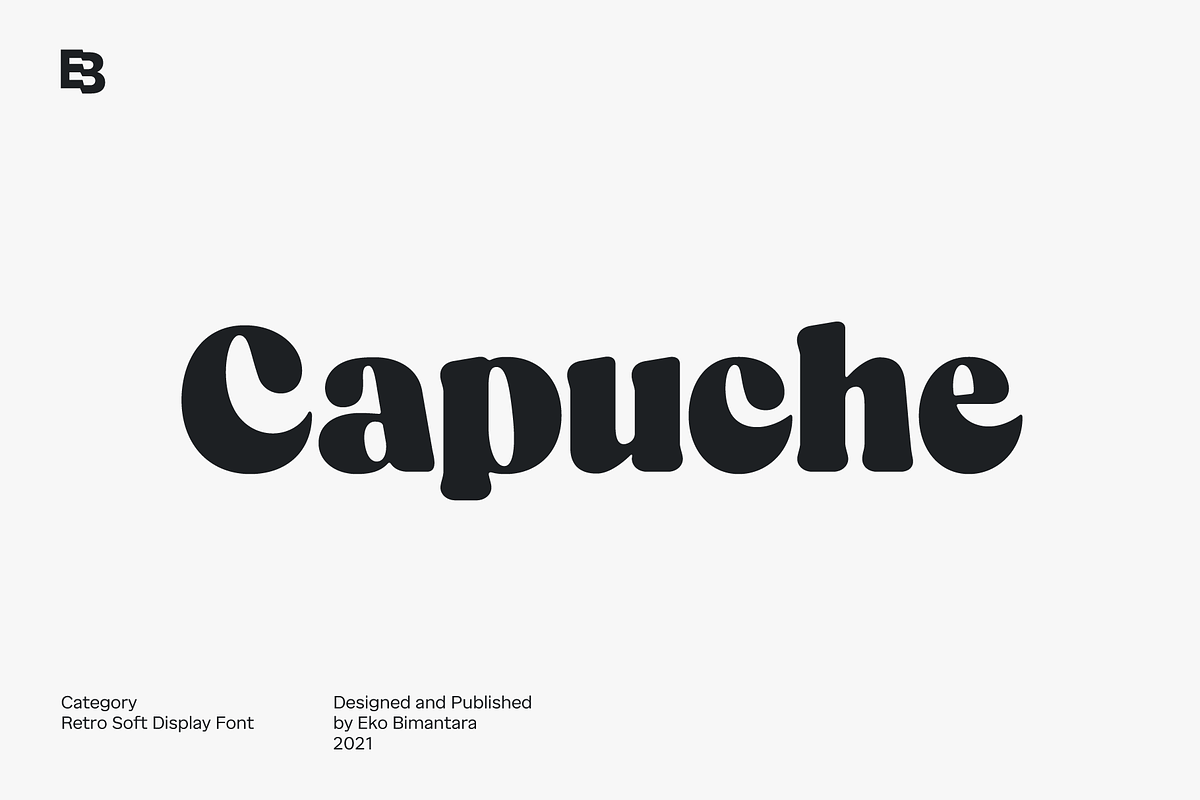
Capuche; Retro Display Font Free Download
Capuche; Retro Display Font Free Download is a bold and eye-catching typeface designed to bring vintage charm to your designs. Inspired by retro design elements, this font features strong, geometric shapes and a playful style that’s perfect for creating logos, posters, headlines, and branding materials. Its unique design makes it ideal for projects that require a nostalgic yet modern look. Whether you're working on a retro-themed event, a creative campaign, or a fun branding project, Capuche; Retro Display Font Free Download offers a versatile and striking solution. Experiment with its unique character in personal projects before purchasing a commercial license and add a touch of vintage flair to your designs with this beautifully crafted retro display font.